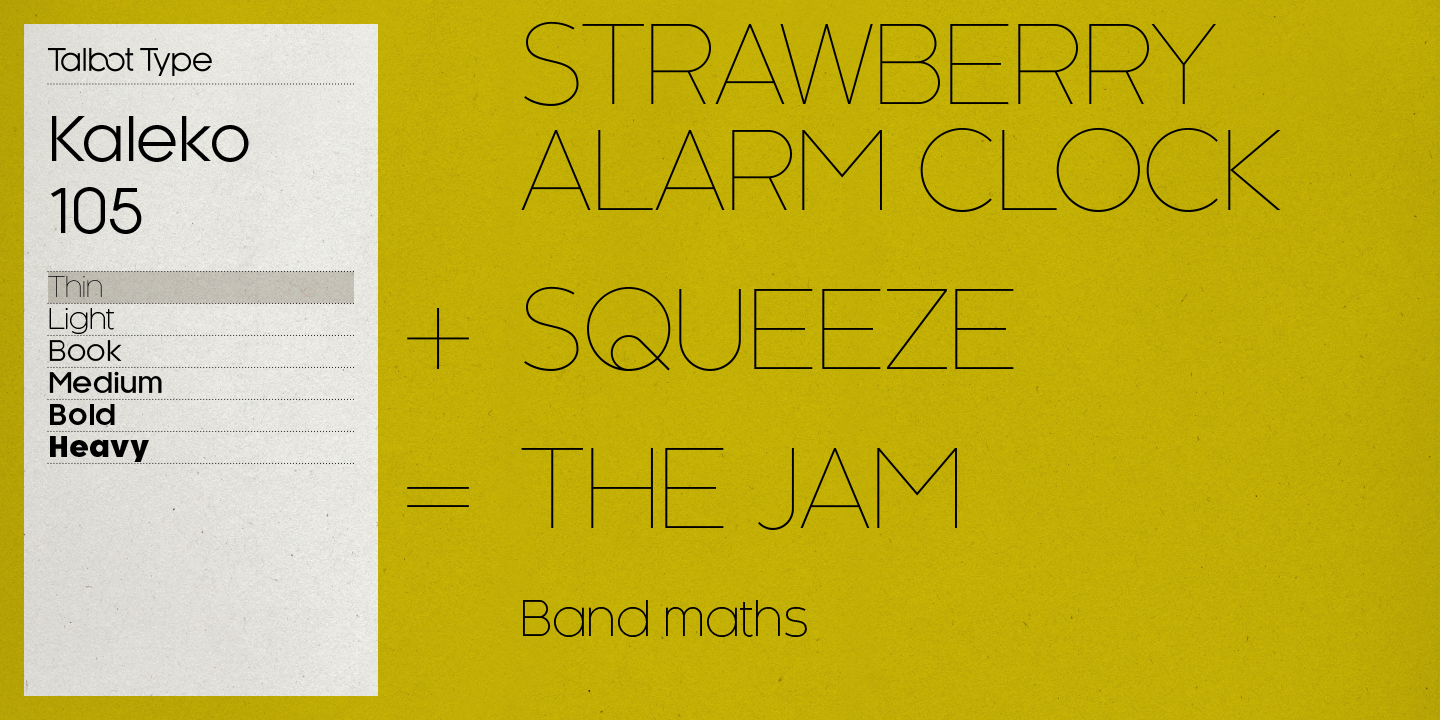
Kaleko 105 Font is perfect for various applications including modern corporate branding, professional presentation designs, contemporary magazine layouts, sleek business communications, innovative tech startup logos, minimalist architectural materials, sophisticated marketing campaigns, clean web interfaces, progressive annual reports, and refined editorial typography.
What makes Kaleko 105 Font so exciting is its masterful synthesis of geometric precision and humanistic warmth that creates an atmosphere of approachable professionalism and contemporary sophistication. This refined typeface features clean, geometric letterforms with subtle humanist proportions and contemporary details that capture the essence of modern design philosophy and professional excellence. The font's balanced character and geometrically-inspired aesthetic make it ideal for brands that want to convey innovation, reliability, and contemporary sophistication to audiences who appreciate modern design principles, professional quality, and geometric elegance.
Kaleko 105 Font family includes multiple weights and styles: Thin, Light, Regular, Medium, Bold, Black, Condensed, Extended, and geometrically crafted Italic variants. Each family member maintains the font's signature geometric sophistication while offering different levels of visual impact and stylistic flexibility for diverse contemporary and professional applications.
The Kaleko 105 Font Free Download provides designers with access to a geometrically-inspired typeface that excels in corporate and design markets. Whether you're creating modern brand identities, designing professional marketing materials, or developing sophisticated digital experiences, this font delivers the contemporary aesthetic needed to establish credibility with business audiences and design-conscious consumers. Its geometric styling and professional essence make it particularly effective for technology companies, design studios, and contemporary business services.
Typography geometrists will appreciate the mathematical precision and humanistic balance in Kaleko 105 Font's construction. The font features precisely engineered letterforms with geometric proportions, optimized kerning for professional applications, and carefully calibrated details that ensure exceptional readability while maintaining its sophisticated character. From corporate presentations to architectural plans, this typeface maintains its elegance and professional appeal across all contemporary contexts.
For modern web designers, Kaleko 105 Font provides outstanding performance in contemporary digital environments and professional platforms. The font's technical specifications are optimized for various screen resolutions while preserving the clean, geometric edges that define its sophisticated character. Its versatility makes it suitable for both static professional content and dynamic interactive experiences.
Creative professionals working in corporate communications, architectural design, technology branding, and contemporary marketing will find Kaleko 105 Font to be an essential tool for projects requiring sophisticated visual communication. The font's ability to convey innovation, professionalism, and geometric elegance makes it invaluable for brands targeting business decision-makers and design-conscious demographics.
Design agencies specializing in corporate and contemporary brands appreciate Kaleko 105 Font's versatility in creating memorable geometric identities.